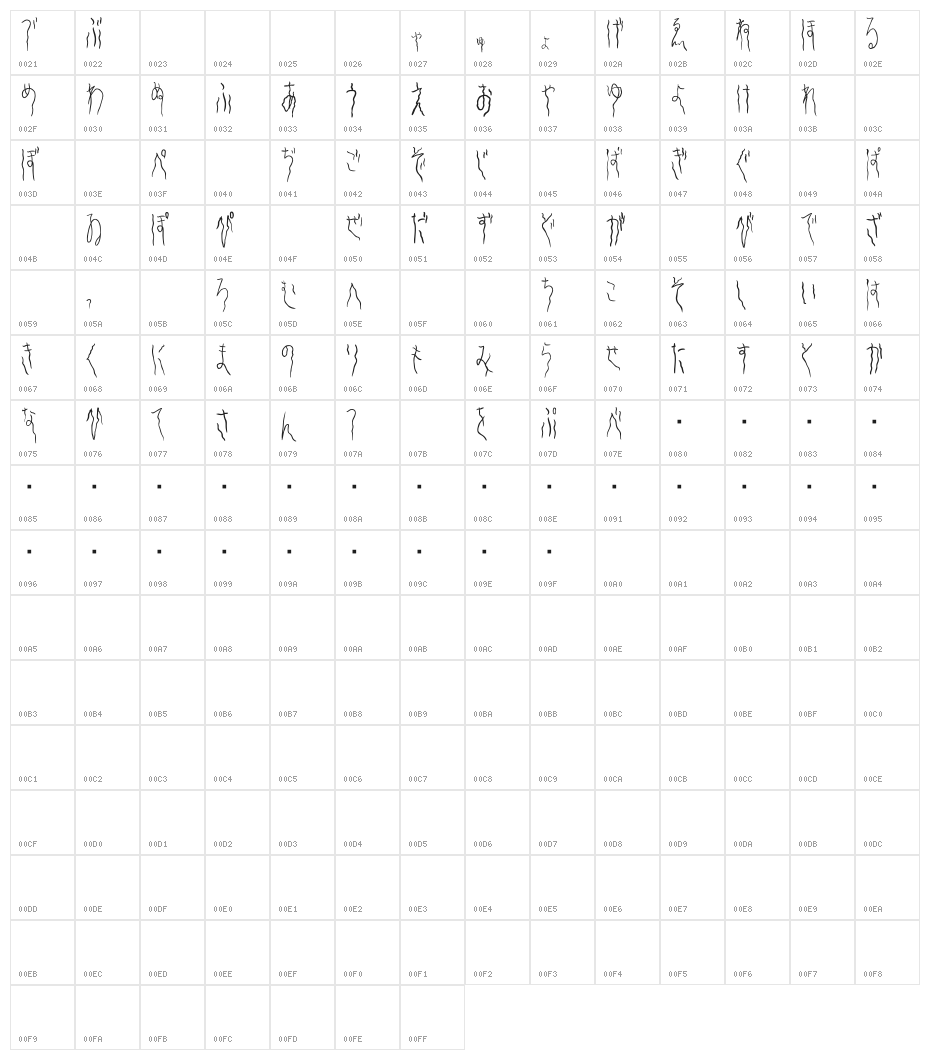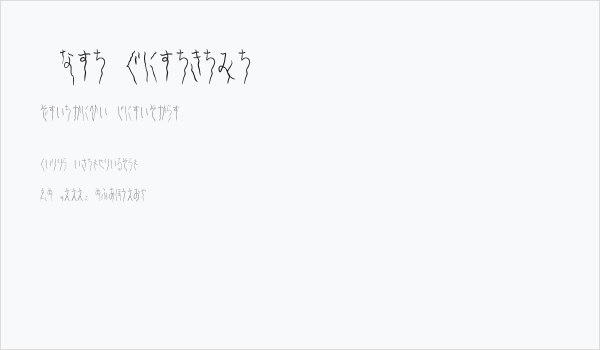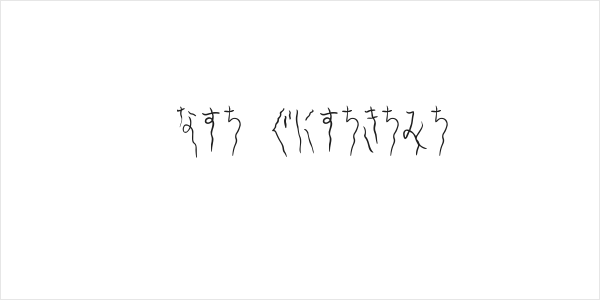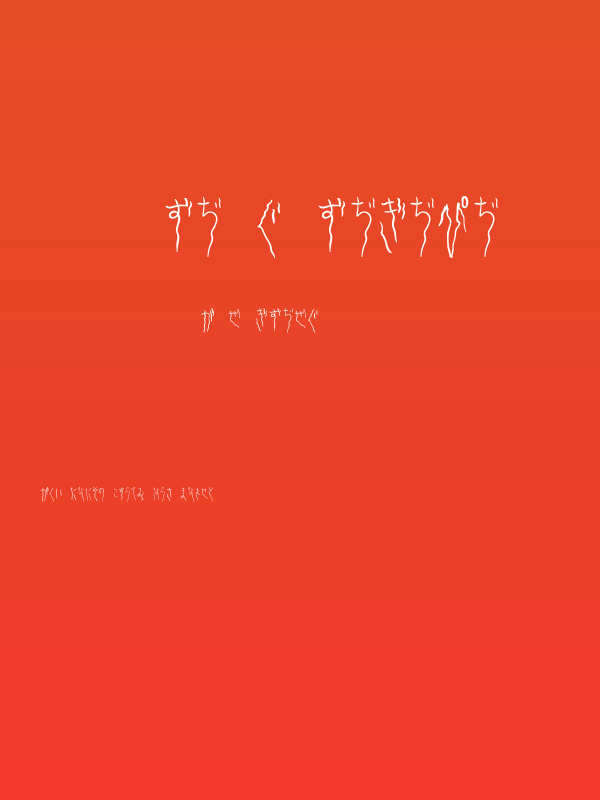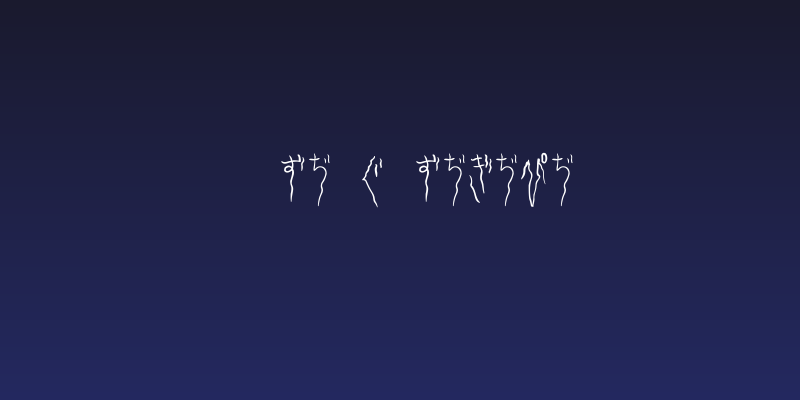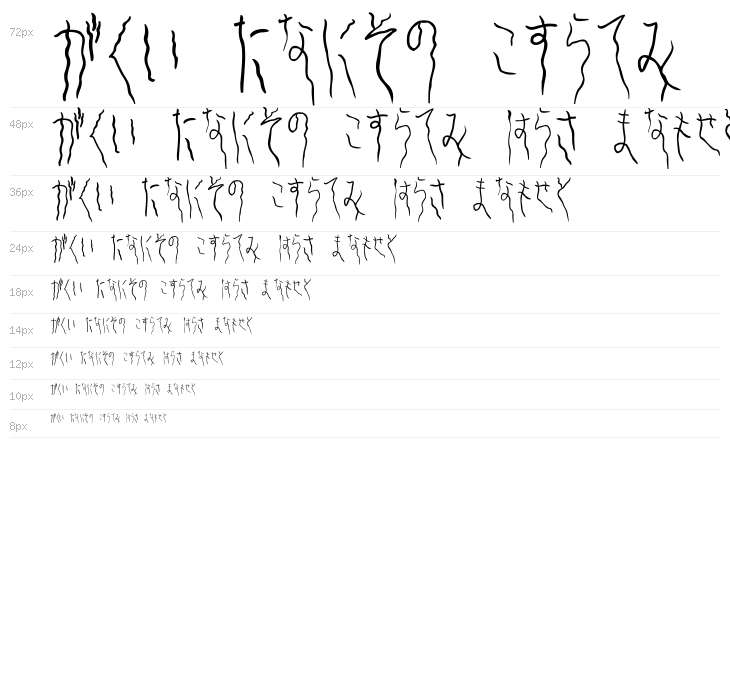
Yura_Hiragana Font
Yura_Hiragana Description
This font features a unique, hand-drawn style that mimics traditional Japanese hiragana characters. Each character is crafted with a fluid, organic line quality that gives it a whimsical and artistic appearance. The strokes vary in thickness, adding a dynamic and lively feel to the text. The characters are slightly irregular, enhancing the hand-crafted aesthetic. This font captures the essence of traditional Japanese calligraphy while incorporating a modern twist, making it suitable for creative and artistic projects.
| Overall Style | Artistic |
| Use Case | Logos, Artistic projects, Cultural designs |
| Proposed Projects | Ideal for artistic projects, cultural designs, greeting cards, and creative branding. |